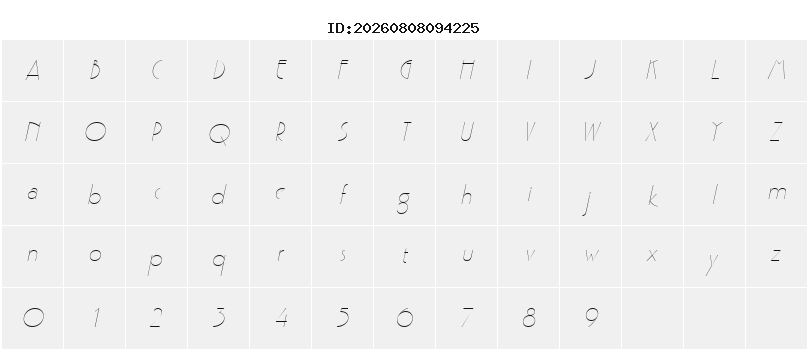
Pouf SSi Preview
• Font Name: Pouf SSi
• Font Style: Light Italic
• Full Font Name: Pouf SSi Light Italic
• PostScript Name: PoufSSiLightItalic
About Pouf SSi.ttf
Pouf SSi.ttf is a modern, elegant sans-serif font designed for ultimate readability and visual harmony. Perfect for branding, headlines, web design, and print materials.